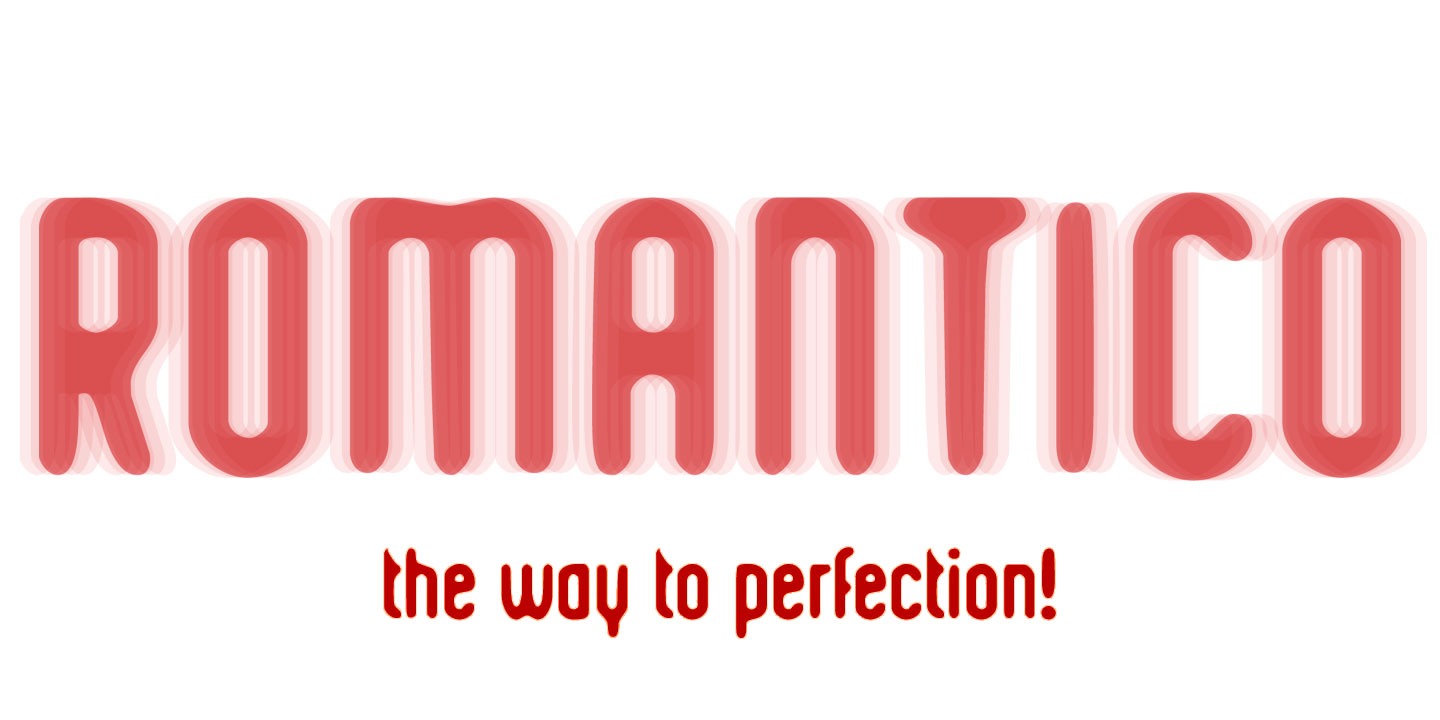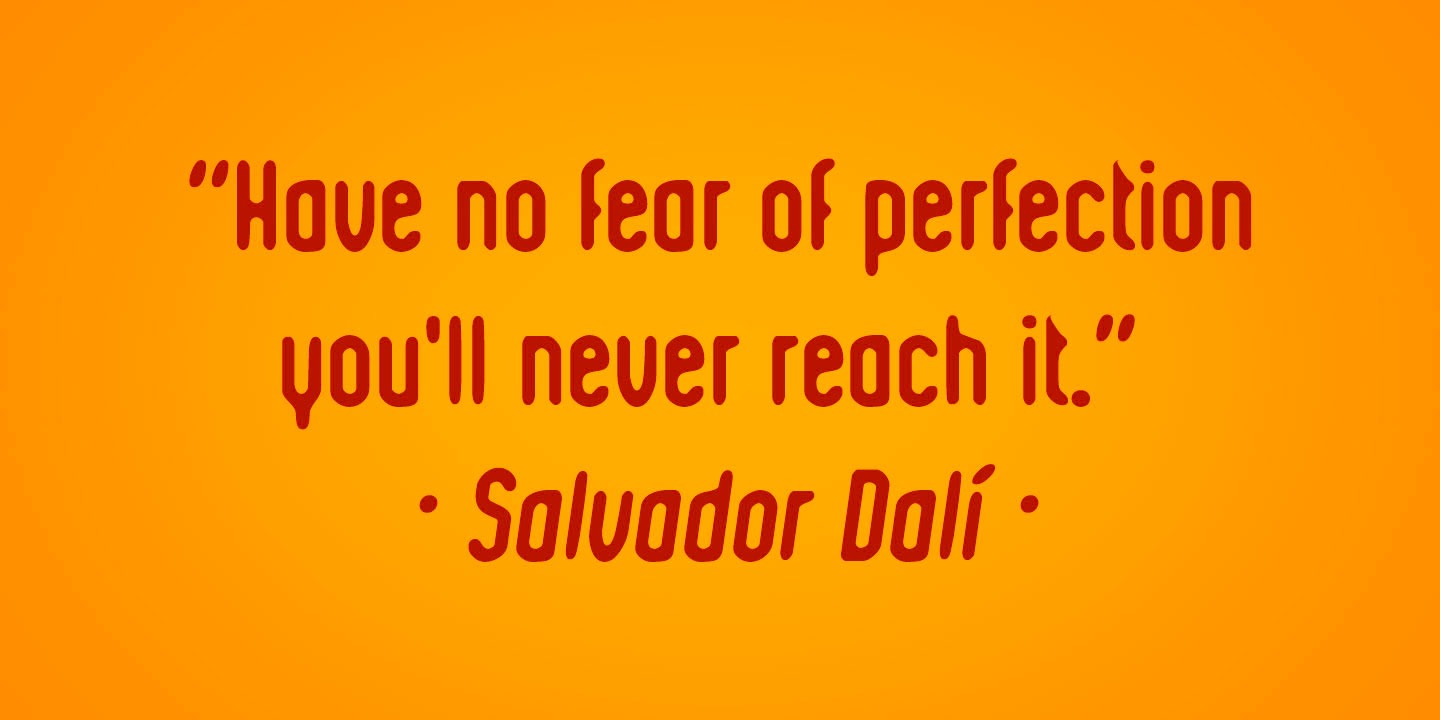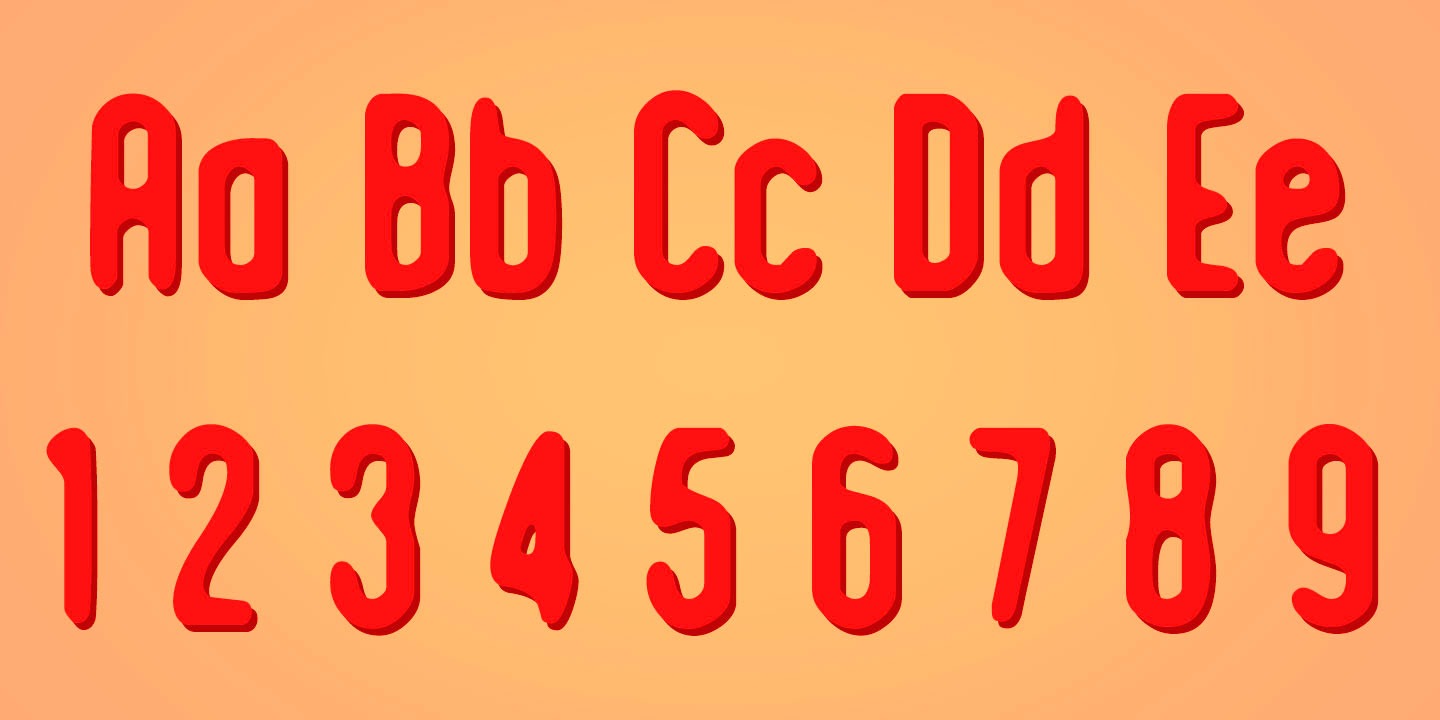
Romantico
Kustomtype's ?Romantico? font is a sans serif font family with a regular & oblique version. It contains all upper & lower cases.
The ?Romantico? family is coordinated into letterforms, metrics, and weights to work better together.
Why still looking for old school types for your POSTERS, advertising, text, design, artwork, headtext, editoral design, magazines, etc.?
"The true genius shudders at incompleteness - imperfection - and usually prefers silence to saying the something which is not everything that should be said."
Edgar Allan Poe